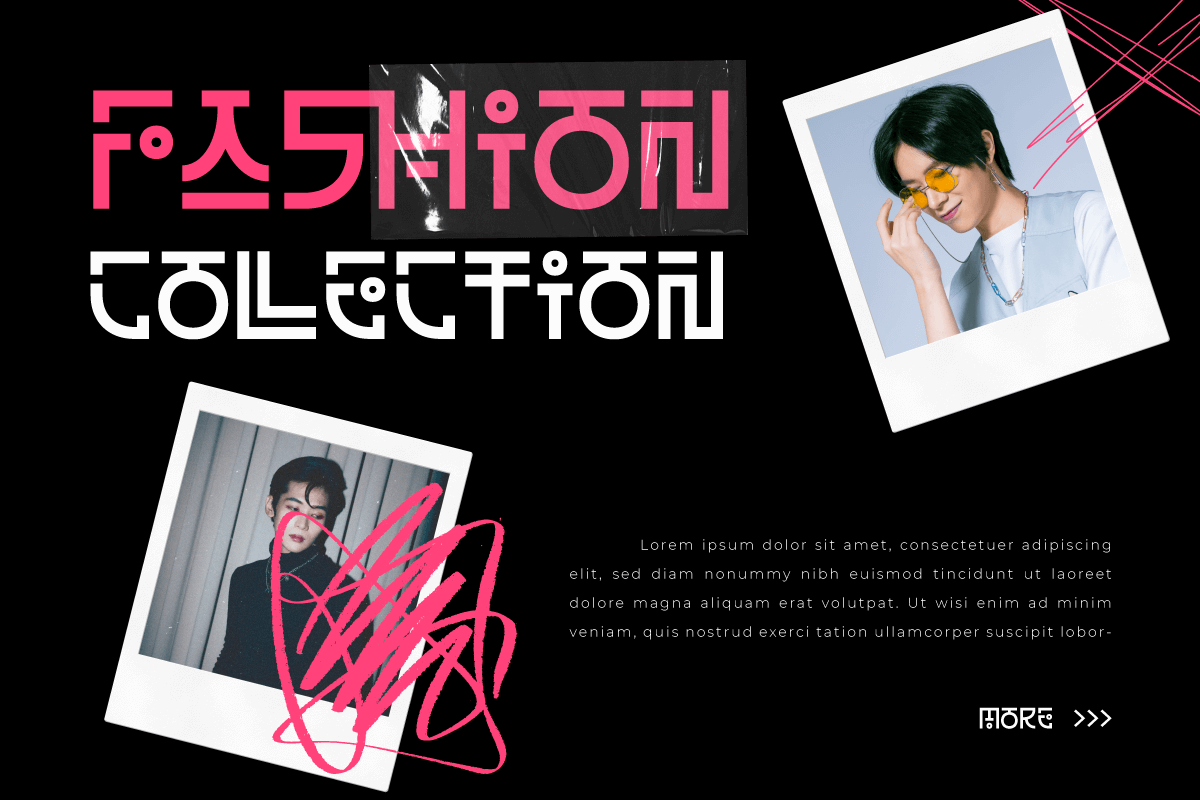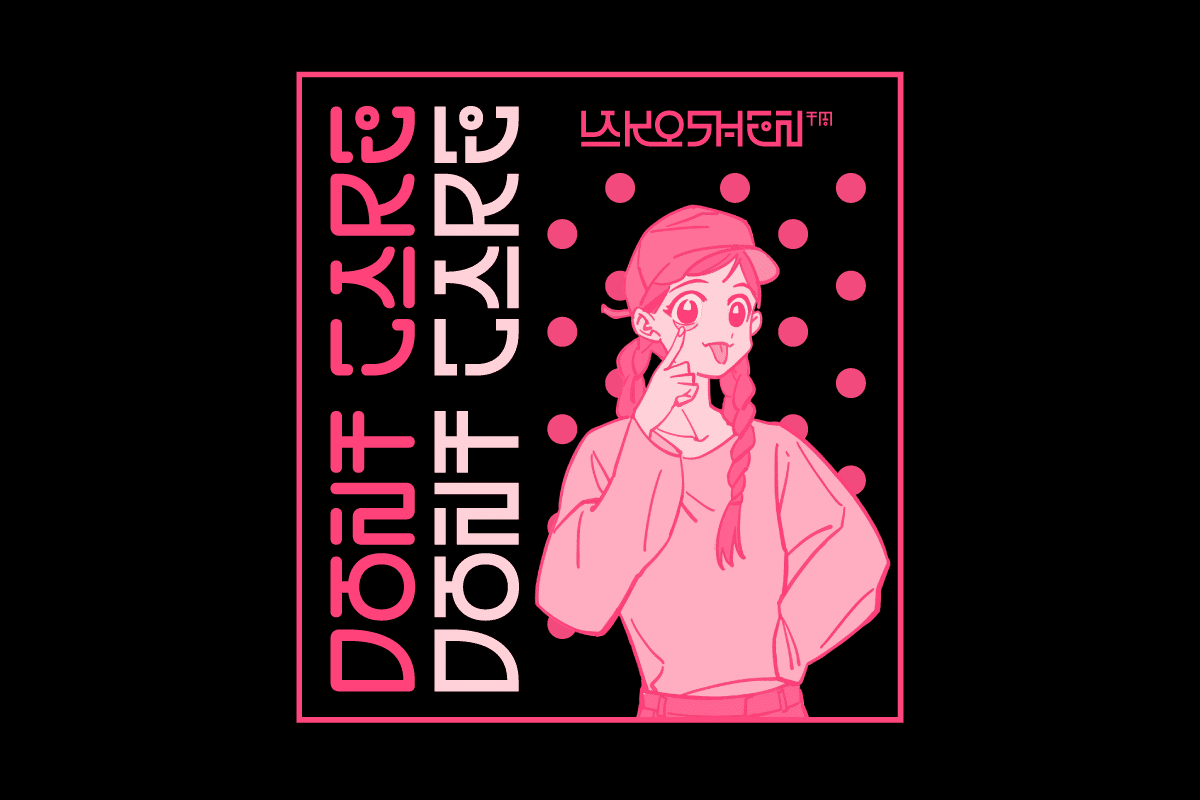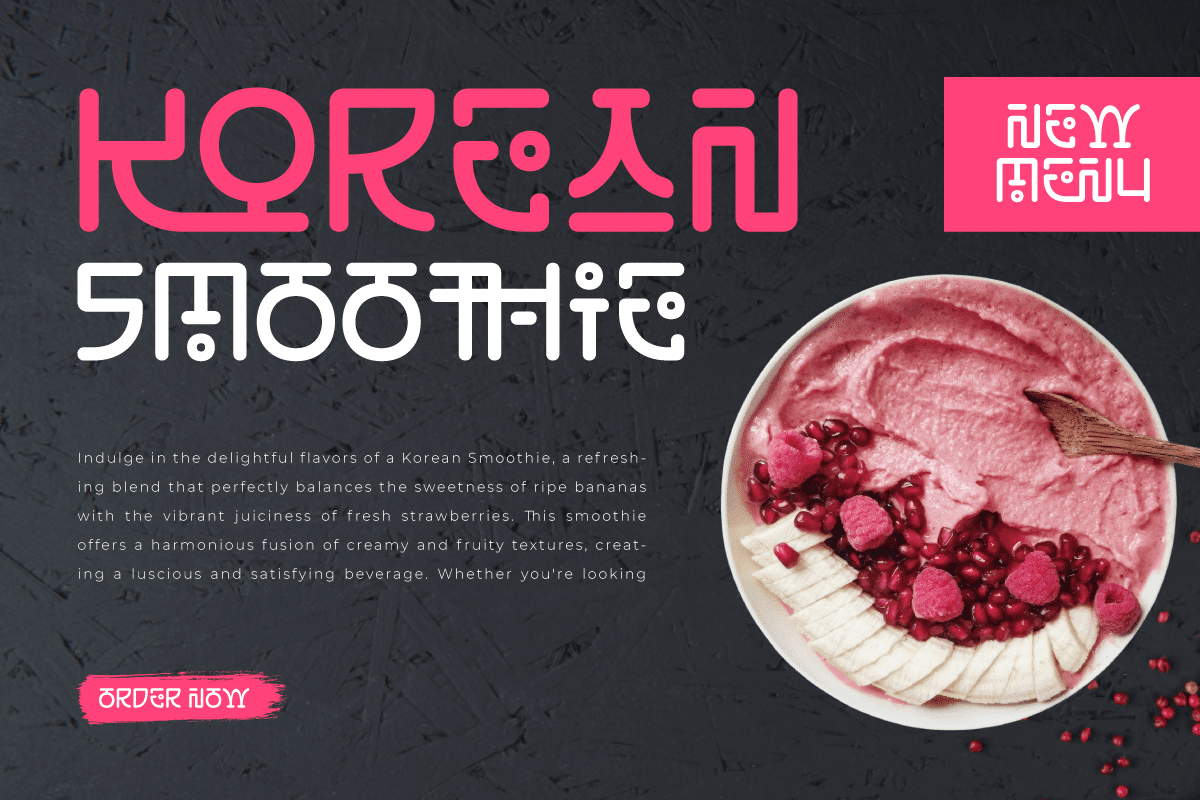
Lakoshen Korean Font
Lakoshen, a stunning and easy-to-read Korean-style font. Designed with delicate details and a traditional touch, each Lakoshen letter reflects the elegance of Korean culture’s rich historical heritage.
Lakoshen presents the perfect combination of typographic clarity and beautiful Korean aesthetics. With a design that is easy to understand and learn, this font is suitable for branding projects.